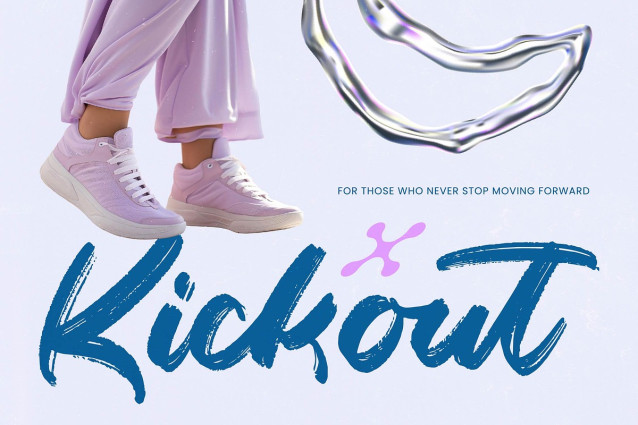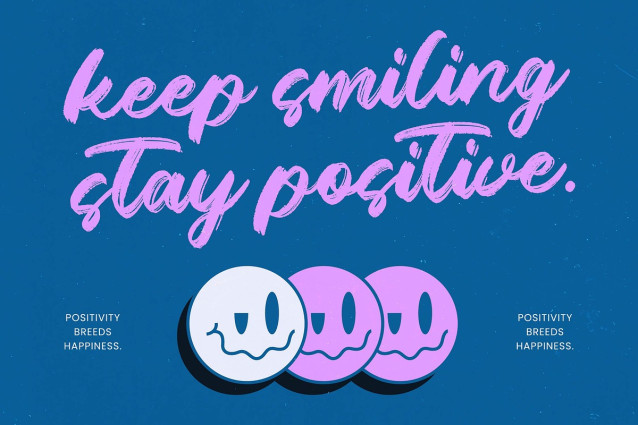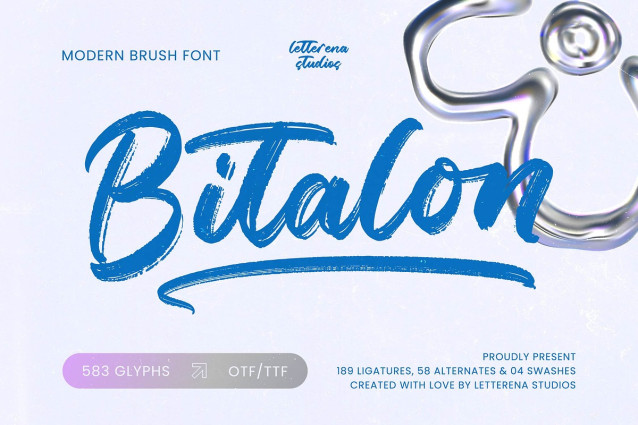
Bitalon Brush Font
Bitalon Brush Font is a modern brush script designed with energetic strokes, dynamic texture, and an authentic hand-painted feel, perfect for projects that need bold personality and expressive visual rhythm. Featuring 583 glyphs, including 189 ligatures, 58 alternates, and 4 swashes, this typeface gives you extensive creative flexibility for logos, sports branding, streetwear designs, posters, music covers, packaging, social media graphics, and anything that demands a strong contemporary brush aesthetic. Its natural pressure, textured edges, and fluid movement bring handcrafted depth to every composition, making Bitalon a standout choice for designers seeking a premium brush font with versatility and character.